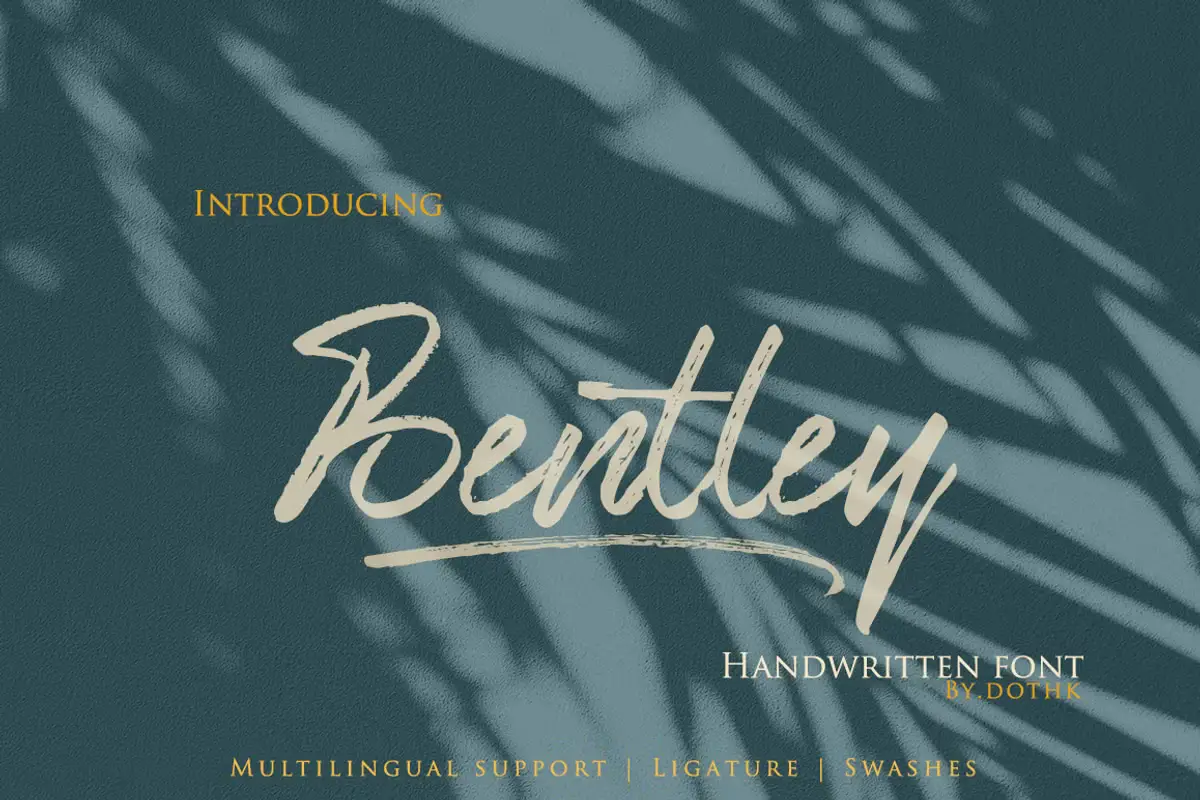
Bentley Script is a versatile free handwritten brush font that brings a casual, artistic flair to your designs. Created with a dry brush style, this font offers a range of letter variations, making it perfect for creating unique and captivating designs. Whether you’re crafting a striking header, an eye-catching logo, or a heartfelt handwritten quote, Bentley Script provides the flexibility and character needed to make your work stand out. It’s also ideal for product packaging, posters, merchandise, social media content, and greeting cards, adding a personal and creative touch to any project.
The font is equipped with OpenType features and offers an extensive array of glyphs. This rich selection allows you to customize each letter according to your preference, giving you endless possibilities for creating designs that truly reflect your style. Bentley Script supports multiple languages, making it a versatile choice for global projects.
Whether you’re an experienced designer or just starting, Bentley Script offers the tools you need to create stunning, personalized designs that leave a lasting impression.
Bentley Script Free Handwritten Brush Font